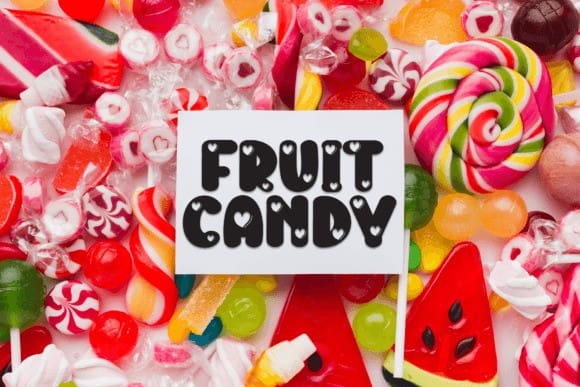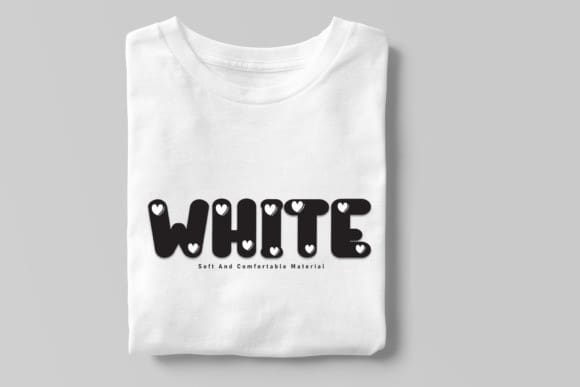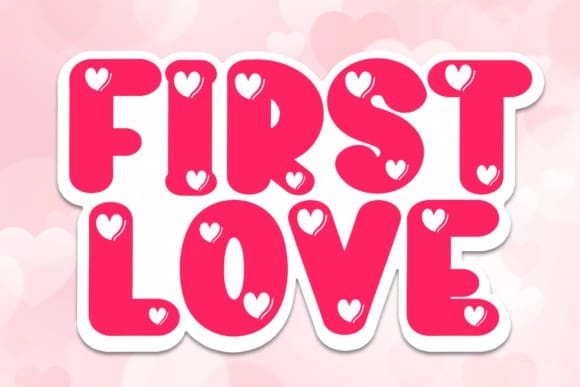
First Love Decorative Font
First Love Decorative Font is a sweet, decorative font with tiny hearts inside each letter. Perfect for adding a touch of love and charm to any text!